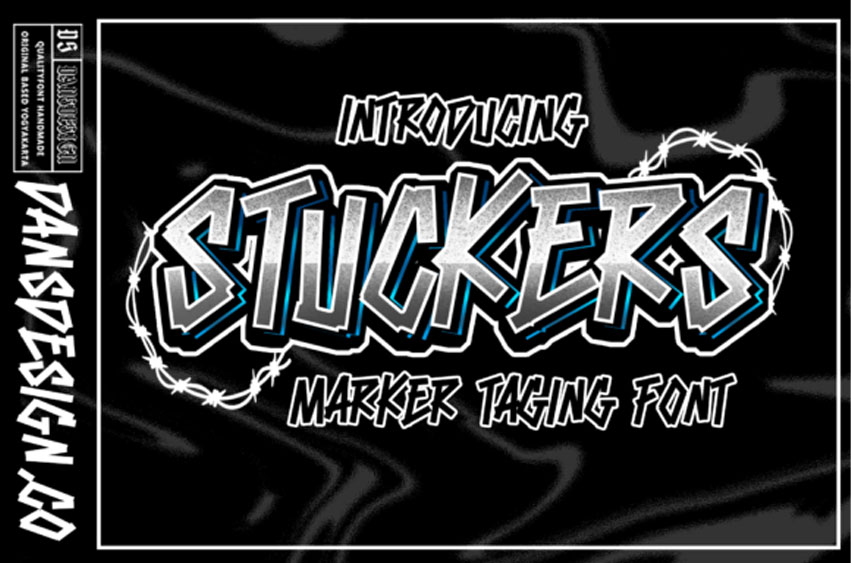
Stuckers Font
Stuckers Font is a dramatic, graffiti-styled display font that has a street art vibe.
This font is suitable for designs such as t-shirts, sportswear, logos, advertisements, clothing, and more.